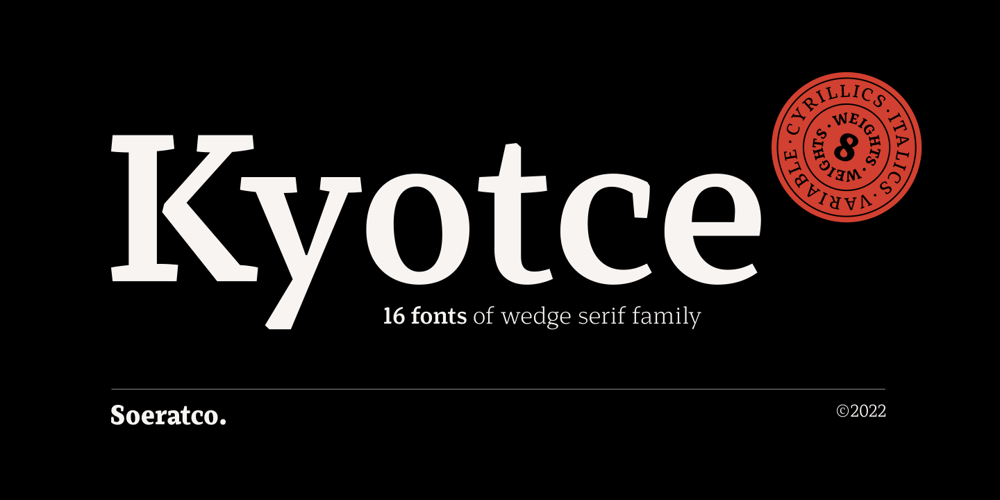
Kyotce Font Family was designed by Satia Hayu Prabowo and published by Soerat Company. Kyotce contains 18 styles and family package options. Kyotce is inspired by the Egyptian serif which has a strong and bold typeface. This family of 8 weights from Light to Bold along with italics and is perfect for advertising, packaging, logo, editorial and publishing, branding and other creative industries. Each style includes 700+ glyphs, Kyoto supports around 200 languages in the Latin and Cyrillic.This font provides advanced typographic support with features such as ligatures, alternate characters, old-style figures, fractions, numerator/denominator, superior/inferior, and various symbols.